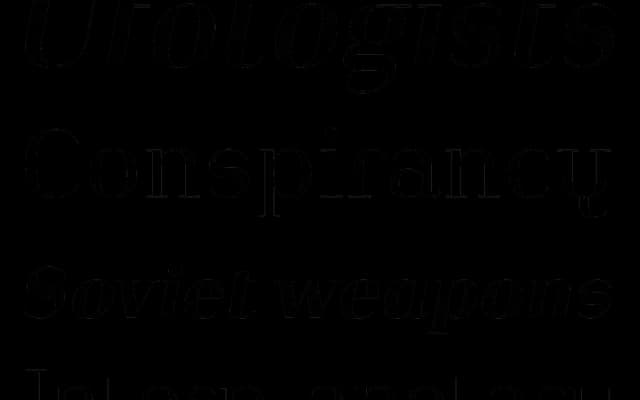
Heimat Didone
A Didone serif from Atlas Fonts following the high-contrast tradition of Bodoni and Didot.
Heimat Didone sits within the Didone classification, defined by its vertical stress, extreme contrast between thick and thin strokes, and hairline serifs. The name positions it within a distinctly European typographic heritage. Little additional detail was available from the page, but the family appears suited to editorial, fashion and luxury applications.
The name explicitly references the Didone classification, a high-contrast serif style characterised by vertical stress and hairline serifs in the tradition of Bodoni and Didot.